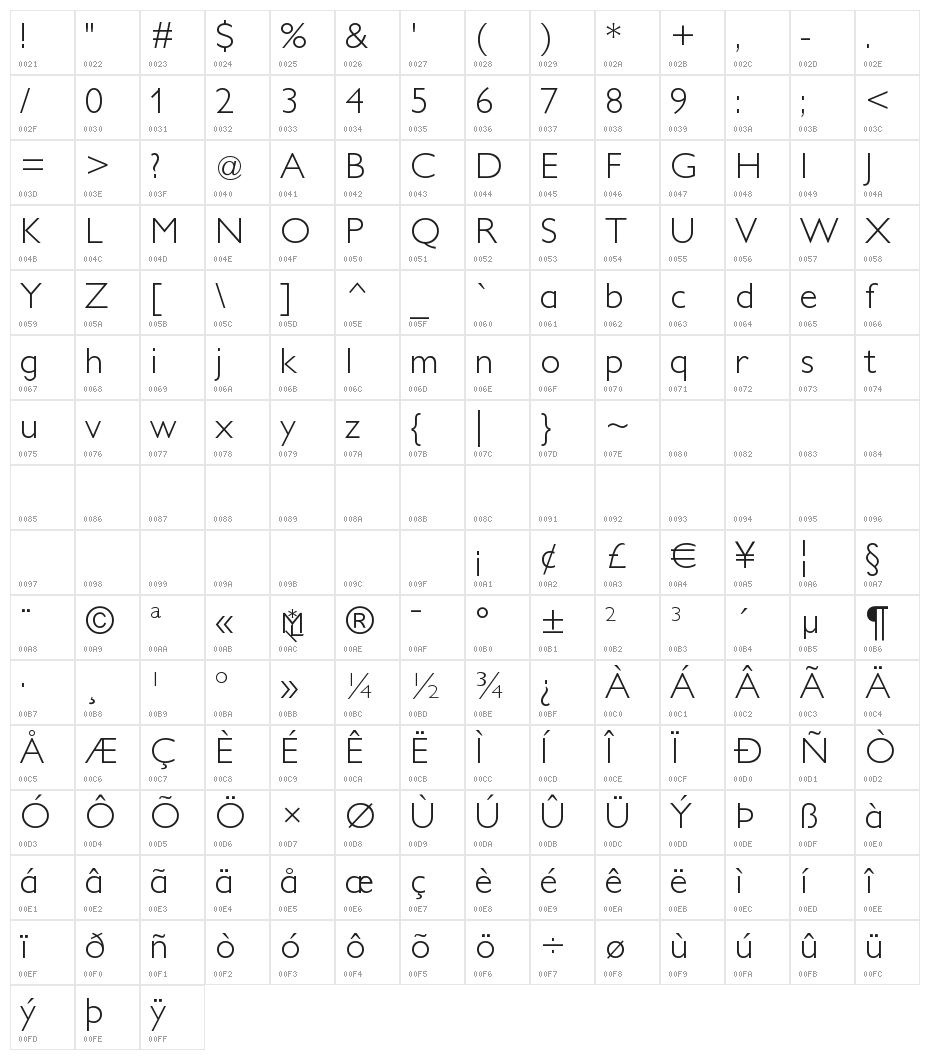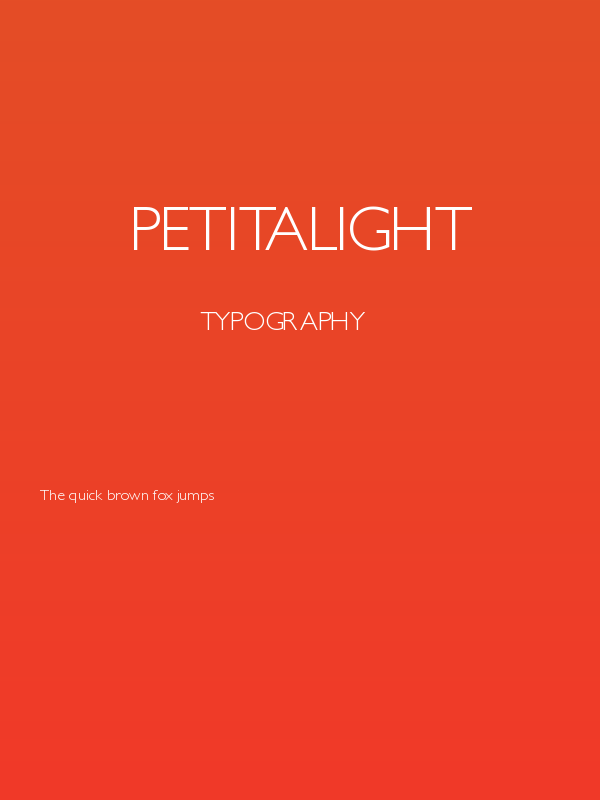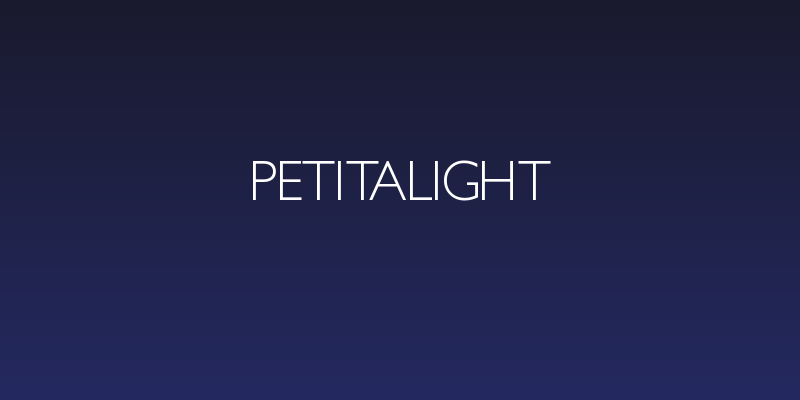
PetitaLight Font
PetitaLight Description
This font features a clean and minimalist design with a modern aesthetic. The characters are well-proportioned, with a consistent stroke width that gives it a sleek and elegant appearance. The uppercase letters are slightly taller than the lowercase, providing a subtle distinction that enhances readability. The numerals are clear and straightforward, matching the overall style of the alphabet. Special characters are included, maintaining the same design ethos, ensuring versatility across various applications. The font's simplicity and clarity make it suitable for a wide range of uses, from digital interfaces to print media.
| Proposed Projects | Ideal for branding, web design, editorial layouts, and corporate communications. |